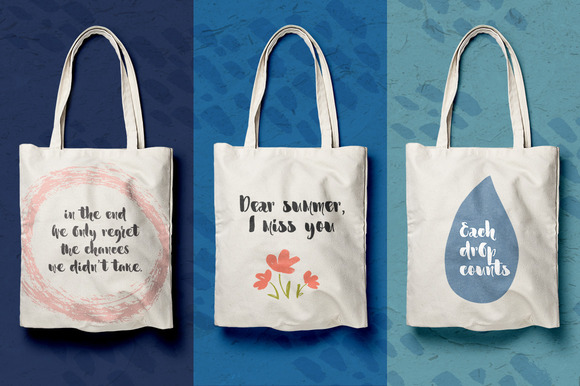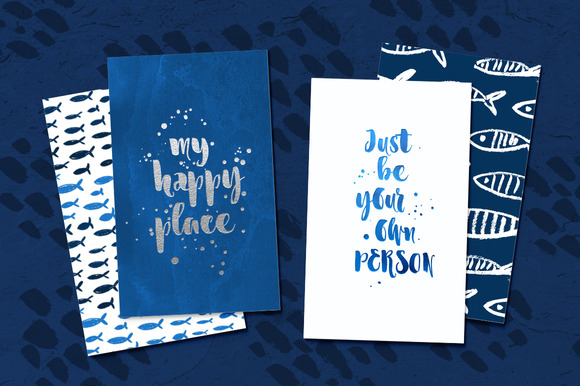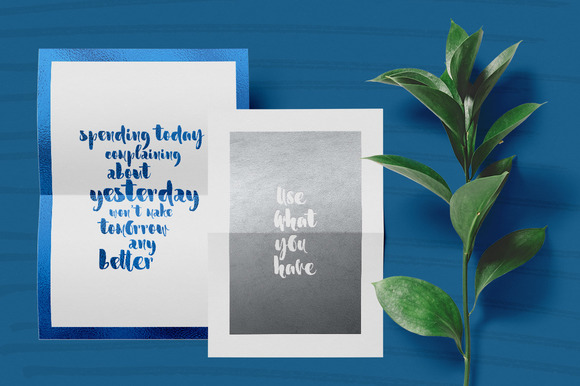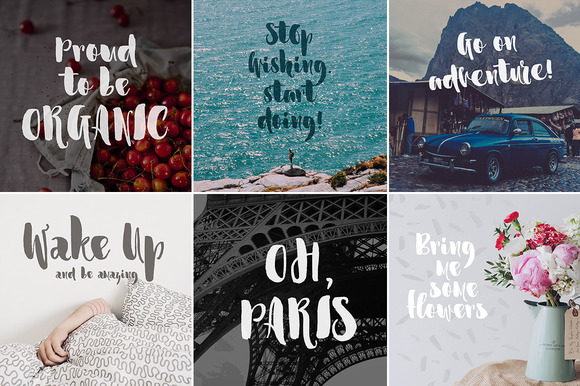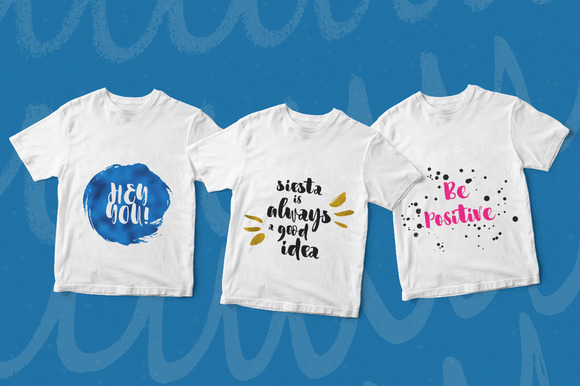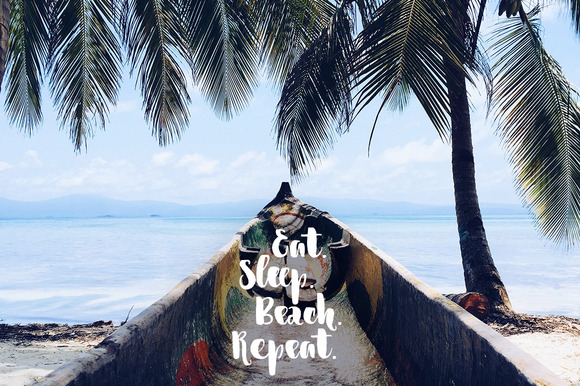
Introduction to Marmaris Font
Marmaris is a playful brush font created by Favete Art.
Key Features of Marmaris Font
Why Choose Marmaris Font?
Marmaris Font offers exceptional quality and versatility, making it a valuable addition to your design toolkit. Whether you’re creating for personal projects or commercial use, Marmaris Font delivers professional results.